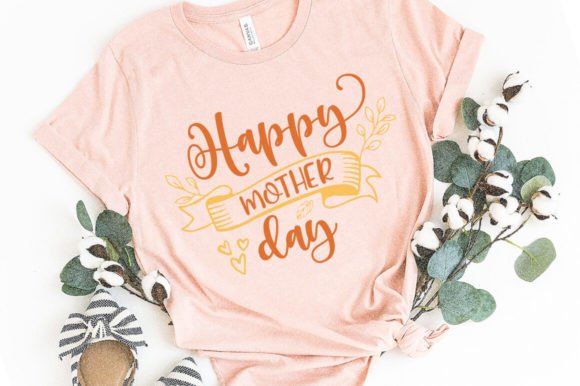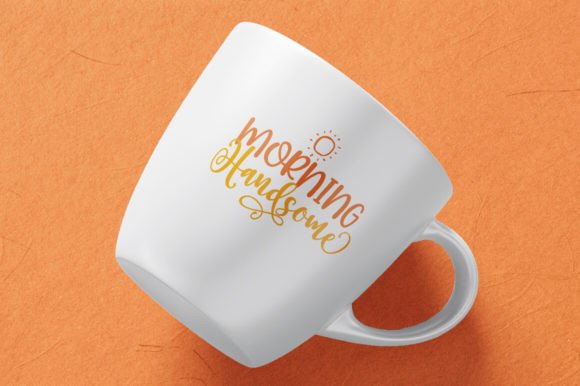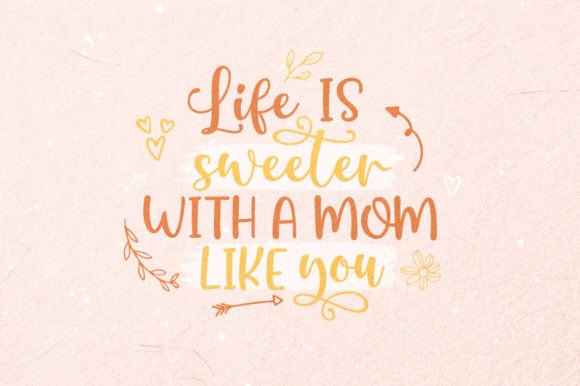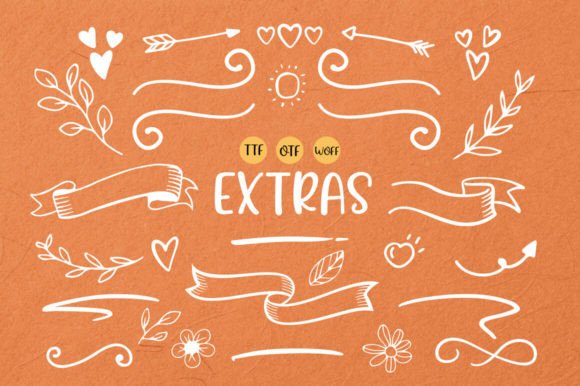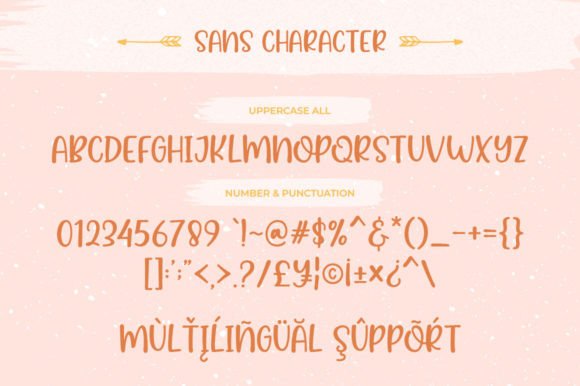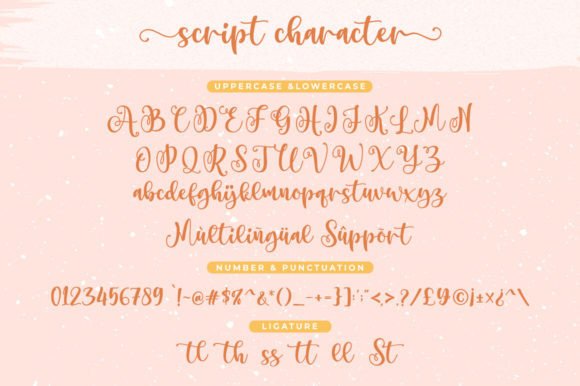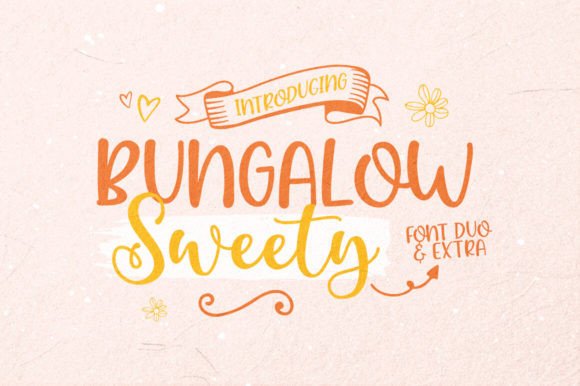
Bungalow Sweety Duo Font: A Beautiful Script Font for Designers and Crafters
Are you looking for a font that can add a touch of elegance and sophistication to your designs? Look no further than the Bungalow Sweety Duo Font. This beautiful script font comes with a range of features that make it perfect for designers and crafters alike. In this article, we’ll take a closer look at the Bungalow Sweety Duo Font and explore its features, benefits, and uses.
What is Bungalow Sweety Duo Font?
Bungalow Sweety Duo and Extras is a script font that features lots of alternative lowercase glyphs, plus a complementary font (Sans) and lots of cliparts in TTF and OTF formats. This font has a beautiful and balanced character, making it suitable for a variety of purposes, such as posters, wedding invitations, logos, product packaging, branding, titles, signs, labels, mugs, book covers, quotes, and more.
Key Features of Bungalow Sweety Duo Font
- Script Font with Alternative Glyphs: The Bungalow Sweety Duo Font features a range of alternative lowercase glyphs, allowing you to add a unique touch to your designs.
- Complementary Sans Font: The font comes with a complementary sans font, providing you with even more options for your designs.
- Lots of Cliparts: The font includes lots of cliparts in TTF and OTF formats, giving you a wide range of creative possibilities.
- PUA Encoded: The font is PUA encoded, which means you can access all of the amazing glyphs and ligatures with ease.
Benefits of Using Bungalow Sweety Duo Font
The Bungalow Sweety Duo Font offers a range of benefits for designers and crafters, including:
- Elegance and Sophistication: The font’s beautiful and balanced character adds a touch of elegance and sophistication to any design.
- Versatility: The font is suitable for a wide range of purposes, from posters and wedding invitations to logos and product packaging.
- Easy to Use: The font is PUA encoded, making it easy to access all of the glyphs and ligatures.
- Time-Saving: The font’s comprehensive set of glyphs and cliparts saves you time and effort in creating your designs.
Uses of Bungalow Sweety Duo Font
The Bungalow Sweety Duo Font is perfect for a variety of design projects, including:
- Posters and Flyers: Create eye-catching posters and flyers with the font’s elegant and sophisticated character.
- Wedding Invitations: Add a touch of romance and elegance to your wedding invitations with the Bungalow Sweety Duo Font.
- Logos and Branding: Use the font to create unique and memorable logos and branding materials.
- Product Packaging: Add a touch of sophistication to your product packaging with the Bungalow Sweety Duo Font.
- Mugs and Book Covers: Create beautiful and eye-catching designs for mugs and book covers with the font.
In conclusion, the Bungalow Sweety Duo Font is a beautiful and versatile script font that is perfect for designers and crafters. With its range of features, benefits, and uses, it’s an ideal choice for a wide range of design projects. Whether you’re creating posters, wedding invitations, logos, or product packaging, the Bungalow Sweety Duo Font is sure to add a touch of elegance and sophistication to your designs.